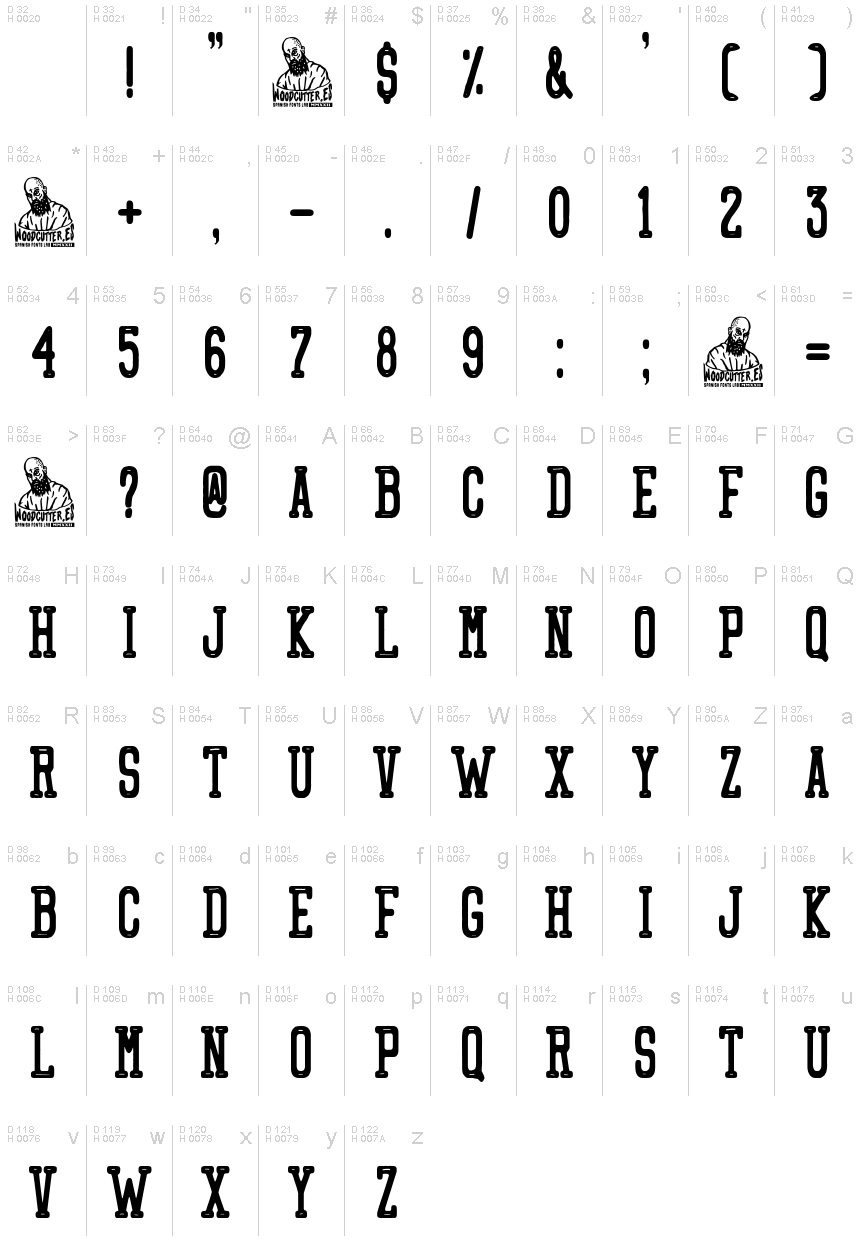
Moderno pero Español
Moderno pero Español, designed by Woodcutter Manero, stands as a testament to the harmonious blend of contemporary aesthetics and cultural echoes. This display font captures attention with its condensed form, making it an exceptional choice for titles and headers where space is at a premium. Its eroded style adds a touch of rustic charm, reminiscent of time-worn architecture, yet it holds onto a modern flair that ensures readability and impact.